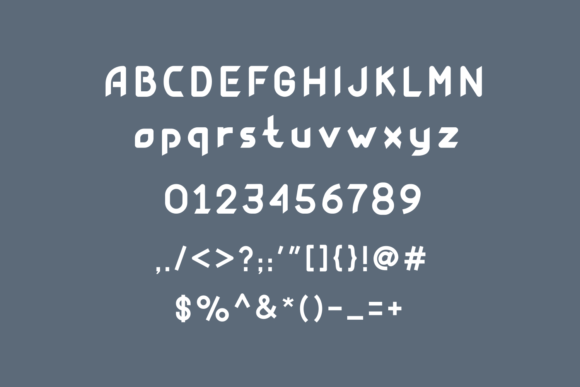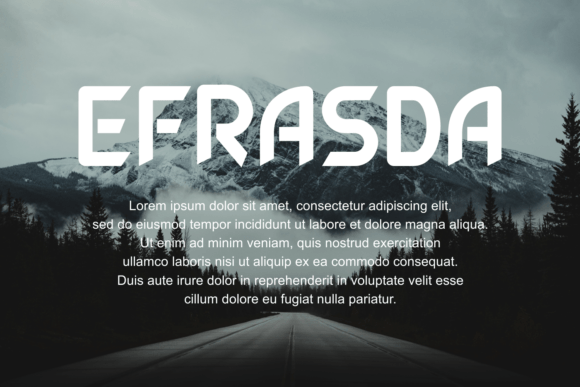
The Efrasda Font: A Designer’s Dream Come True
I’ll never forget the time I was working on a project for a client who needed a font that was both modern and elegant. I had spent hours scouring the internet for the perfect one, but nothing seemed quite right. That was until I stumbled upon the Efrasda font. Its clean lines, balanced letters, and versatile style immediately caught my eye. I knew right then and there that I had found the one. In this article, I’ll share my love for the Efrasda font, its features, and how to make the most of it in your designs.
My Honest Review of Efrasda
- ✨ Clean and Modern Design: Efrasda’s sans serif design makes it perfect for modern projects that require a clean and sleek look.
- ✅ Versatility: This font is incredibly versatile and can be used for a wide range of projects, from branding and advertising to packaging and digital media.
- 💡 Excellent Legibility: Efrasda’s well-balanced letters ensure that it remains legible even at small font sizes.
- 🎨 OpenType Features: Efrasda comes with a range of OpenType features, including stylistic alternates and glyphs, which can add an extra layer of creativity to your designs.
While Efrasda is an excellent font, there are a few quirks to be aware of:
- 🤔 Limited Serif Options: As a sans serif font, Efrasda may not be the best choice for projects that require a traditional serif look.
- ⚠️ Some Kerning Issues: Like any font, Efrasda may require some manual kerning adjustments to ensure optimal spacing between letters.
The Backstory of Efrasda
Efrasda is a font designed with the modern designer in mind. Its creator, a talented typographer, aimed to create a font that was both clean and elegant, yet versatile and highly legible. The result is a font that’s perfect for a wide range of projects, from branding and advertising to packaging and digital media.
Q: What is the Efrasda font?
A: Efrasda is a modern sans serif font designed for use in a wide range of projects.
Q: What are the key features of the Efrasda font?
A: Efrasda features a clean and modern design, excellent legibility, and a range of OpenType features, including stylistic alternates and glyphs.
Q: Is the Efrasda font easy to read?
A: Yes, Efrasda is highly legible and easy to read, even at small font sizes.